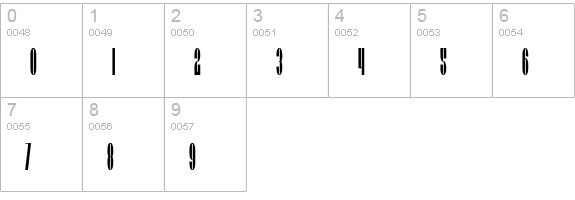
SF Baroquesque Condensed Font Details
SF Baroquesque Condensed is a distinctive, condensed-width variant in the SF typeface family \xE2\x80\x94 well suited to design and typography projects.
Introducing SF Baroquesque Condensed font, a stunning typeface that effortlessly combines the elegance of baroque aesthetics with a modern twist. This font is an embodiment of sophistication, capturing the intricate details and ornate flourishes reminiscent of the Baroque period, while maintaining a contemporary edge that makes it perfect for a wide range of design projects. With its condensed form, SF Baroquesque Condensed font exudes a sense of elegance and refinement, making it ideal for headlines, invitations, book covers, and other projects where a touch of grandeur is desired. The condensed nature of this font allows it to fit more text into a limited space without compromising readability, making it a practical choice for both print and digital designs. But what makes SF Baroquesque Condensed font truly exceptional is that it is not only visually captivating but also free. Yes, you read that right – this extraordinary font is freely available to download at FontsMarket.com. Whether you're a professional designer looking for a unique typeface to elevate your creations or an enthusiast seeking to add a touch of sophistication to personal projects, SF Baroquesque Condensed font is the perfect choice. Its bold strokes and delicate curves create a harmonious balance, while the intricate details and flourishes add a touch of opulence to any design. The versatility of this font is truly remarkable, as it effortlessly adapts to various styles and themes, from vintage-inspired designs to contemporary layouts. SF Baroquesque Condensed font is a testament to the beauty of typography, showcasing the timeless appeal of baroque aesthetics in a condensed form that is both functional and visually striking. Its wide range of characters and ligatures ensure that every word is visually captivating, while the carefully crafted spacing and kerning guarantee optimal legibility. So, whether you're working on a branding project, designing a magazine layout, or creating a stunning wedding invitation, SF Baroquesque Condensed font is the perfect companion. And the best part? It's available for free download at FontsMarket.com, allowing you to effortlessly bring a touch of baroque elegance to your designs without breaking the bank. Embrace the beauty of baroque aesthetics with SF Baroquesque Condensed font and let your creativity soar to new heights. Download this remarkable typeface today and experience the perfect blend of classic opulence and contemporary flair.